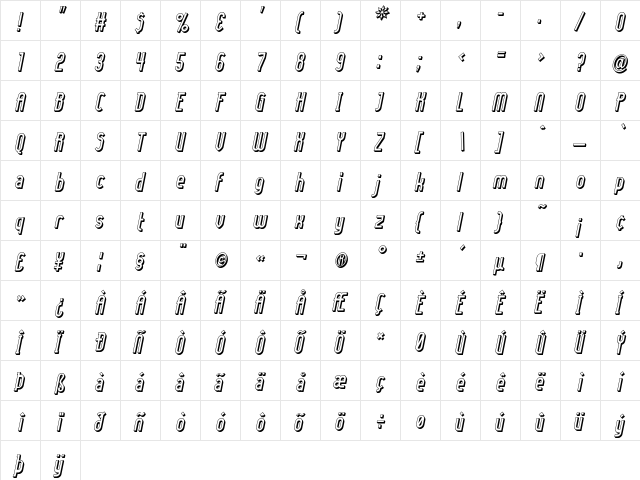
Lady Ice - 3D Italic
Design Context for Lady Ice - 3D Typeface
Lady Ice - 3D is a composed and adaptable typeface that performs quietly and consistently across a wide range of design contexts. The slanted form adds forward momentum and visual energy.
Pro Tip: Try Lady Ice - 3D for annotation and caption copy alongside an upright companion — the contrast in angle creates a dynamic but ordered typographic system.